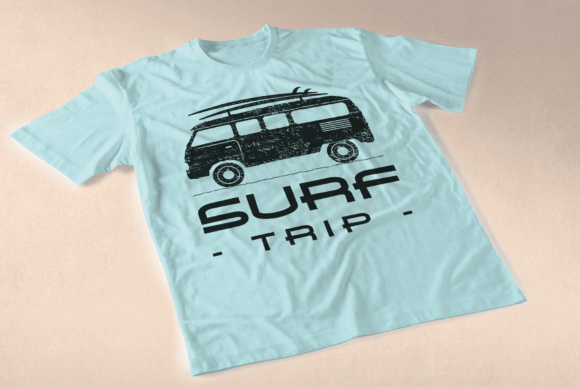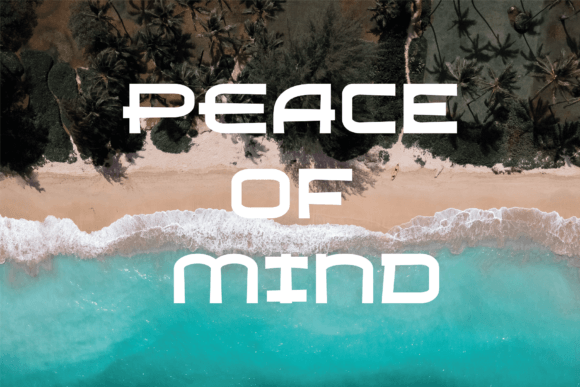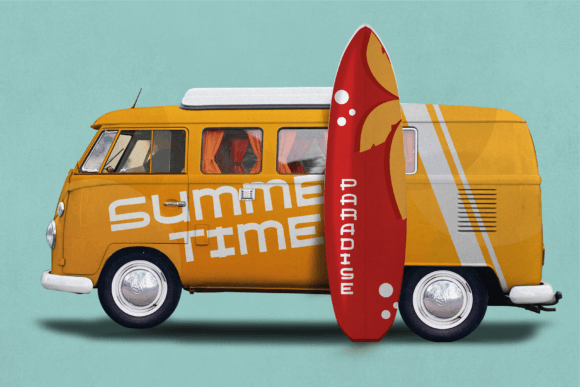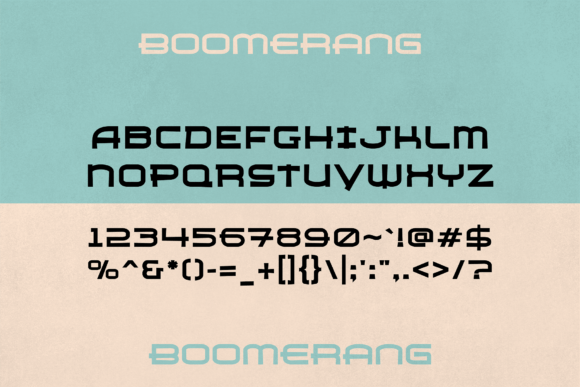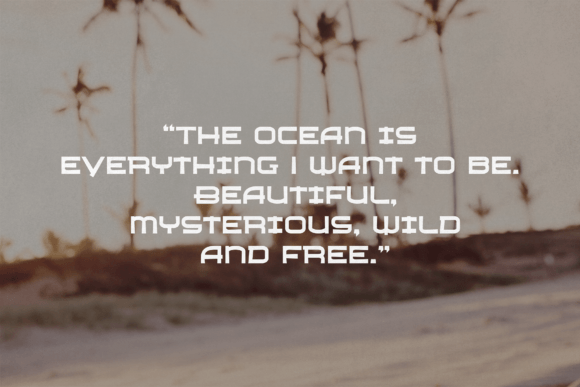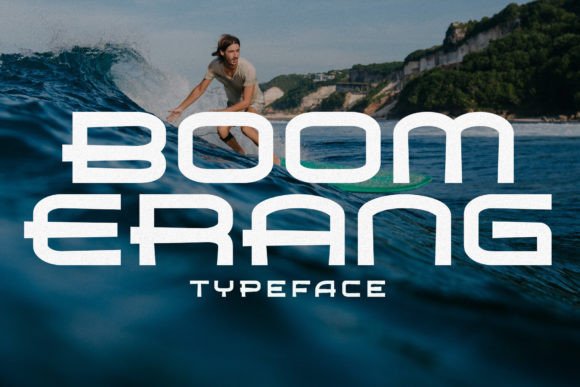
Introducing Boomerang Font: The Ultimate Mid-Century Typeface for Tropical Vibes
Are you looking for a font that captures the essence of a tropical paradise? Do you want to add a touch of mid-century style to your designs? Look no further than Boomerang Font, an all-caps Hawaiian-inspired typeface that’s perfect for a wide range of creative projects.
What is Boomerang Font?
Boomerang Font is a unique and stylish typeface that’s inspired by the sun-kissed beaches and lush landscapes of Hawaii. With its bold, all-caps design, this font is perfect for creating eye-catching headlines, titles, and slogans that evoke the carefree spirit of the islands.
Mid-Century Style with a Tropical Twist
Boomerang Font is firmly rooted in the mid-century design aesthetic, which is characterized by clean lines, simple shapes, and a focus on functionality. However, this font also incorporates elements of Hawaiian culture and style, giving it a distinctly tropical flavor. The result is a font that’s both retro and modern, with a unique personality that’s sure to stand out.
So, what can you use Boomerang Font for? The possibilities are endless! This versatile typeface is perfect for:
- Advertising: Create eye-catching ads that grab attention and evoke the spirit of the islands.
- Branding: Develop a strong brand identity with a font that’s both stylish and memorable.
- Album Covers: Add a touch of tropical flair to your music releases.
- Apparel: Create stylish and eye-catching clothing and accessories.
- Business Cards: Make a lasting impression with a font that’s both professional and stylish.
- Flyers: Create eye-catching promotional materials that grab attention.
- Invitations: Add a touch of tropical elegance to your invitations and event materials.
- Menus: Create menus that evoke the flavors and spirit of the islands.
- Merchandise: Develop a range of stylish and eye-catching merchandise, from t-shirts to tote bags.
- Packaging: Add a touch of tropical flair to your product packaging.
- Web: Use Boomerang Font to create eye-catching headlines and titles for your website.
- Signage: Create eye-catching signs that grab attention and evoke the spirit of the islands.
Why Choose Boomerang Font?
So, why should you choose Boomerang Font for your next project? Here are just a few reasons:
- Unique Style: Boomerang Font has a unique and stylish design that’s sure to stand out.
- Versatility: This font is perfect for a wide range of creative projects, from advertising to merchandise.
- Tropical Vibes: Boomerang Font captures the essence of a tropical paradise, evoking the sun-kissed beaches and lush landscapes of Hawaii.
- Mid-Century Style: This font is firmly rooted in the mid-century design aesthetic, giving it a retro-modern feel.
If you’re looking for a font that captures the essence of a tropical paradise, look no further than Boomerang Font. With its bold, all-caps design and mid-century style, this font is perfect for a wide range of creative projects. Whether you’re a designer, craft, or simply someone who loves the tropical vibe, Boomerang Font is the perfect choice. So why wait? Download Boomerang Font today and start creating your own tropical masterpieces!